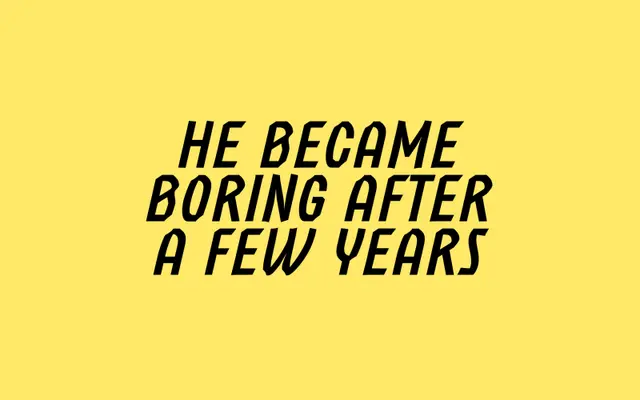
Rothenburg
A small four-style experimental sans by Thomas Gillett, built around deliberately odd angles and an intentionally basic character set.
Designed by Australian type designer Thomas Gillett, Rothenburg pairs Regular and Bold weights with matching italics across a glyph count of just 179. The foundry frames it explicitly as an experiment, with off-kilter angles that sit uneasily but remain legible. Latin language support is broad, covering Afrikaans through to Zulu, though the limited character set makes it best suited to display and branding work rather than running text.
Described by the foundry as an awkward sans serif with odd angles, Rothenburg sits outside standard grotesque or geometric categories and functions as an experimental display sans.